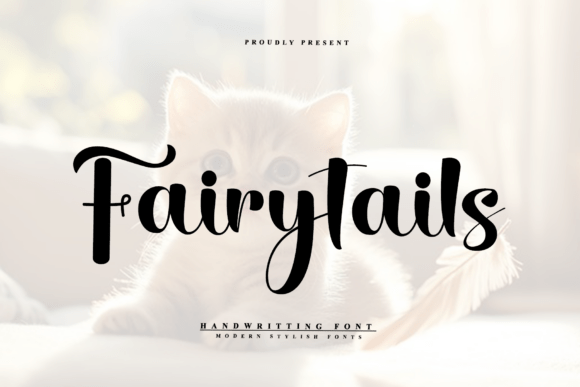
Unleash the Magic of Handwritten Elegance with Fairytails Font
Have you ever been inspired by a beautiful handwritten note or a custom design that captures the essence of a personal touch? For designers, there’s nothing quite like creating something special that leaves a lasting impression. It’s in these moments that the right font can make all the difference.
Enter Fairytails Font, a stunning handwritten script font that exudes modern sophistication and timeless charm. Perfect for custom sublimation designs, boutique branding, and personalized gifts, Fairytails Font is a versatile tool for designers looking to add a touch of elegance and sophistication to their projects. With its smooth strokes, lovely ornamental curves, and excellent legibility, this font is a valuable addition to any designer’s toolkit.
Fairytails Font Key Features
- Font Family: Fairytails Font is a unique, hand-drawn font designed to evoke a whimsical and magical feel.
- Size: The font family includes multiple weights, ranging from Thin (100) to Extra Bold (800), providing versatility for various design applications.
- Unique Characteristics: Fairytails Font features intricate details, flourishes, and ornaments, allowing designers to add a touch of elegance and sophistication to their projects.
Designer Review: Fairytails Font
Overall, I think the Fairytails Font is a lovely addition to any design project. The whimsical feel and ornate details evoke a sense of nostalgia and magic ✨. The font’s versatility makes it suitable for various applications, from children’s books to wedding invitations. The designer has done an excellent job of balancing elegance and playfulness, creating a unique visual identity.
- ✨ Whimsical feel and ornate details
- ✨ Versatility in application
- ✨ Unique visual identity
- ✨ Elegant and playful tone
- ⚠️ Limited character set
- ⚠️ Not ideal for large blocks of text
- ⚠️ May require additional formatting to achieve desired look
In conclusion, the Fairytails Font is a delightful choice for designers looking to add a touch of magic to their projects. While it may not be suitable for every application, its unique charm and versatility make it a valuable addition to any design library. With a little creativity and formatting, the Fairytails Font can help bring your designs to life.
Practical Application Guide for Fairytails Font
Tips for Getting the Most Out of Fairytails Font
1. Use the font in combination with other whimsical elements, such as illustrations and graphics.
2. Experiment with different font sizes and colors to create visual interest.
3. Use the font to create a consistent brand identity across all your marketing materials.
1. Branding and identity design.
2. Social media graphics and advertising.
3. Event invitations and marketing materials.
4. Custom illustrations and graphics.